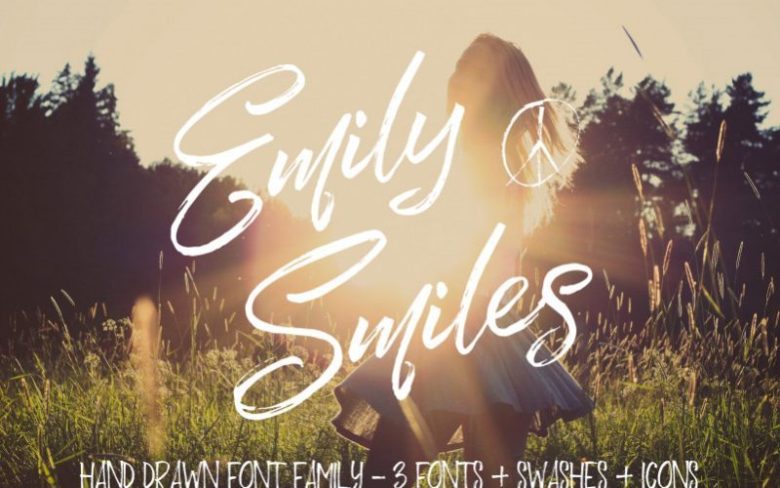
Emily Smiles Brush Font
Brush font family with stable character structure and new shape designs. Emily Smiles new stable character structure; It is ideal for exhibiting a solid position for products such as brand, poster design, book covers, magazines, fashion campaigns, album covers, logo, slogan, typography.
Emily smiles from ‘a’ to ‘z’ ” aa ” has adjacent ligatures letters and a little more. For example, in the photoshop and illustrator, the same letters are combined and the new design letter comes together.
It gives a natural image. In addition to standard characters, there are alternative upper and lower case letters. Ligatures and extra letters.You can see Letter presentation page.